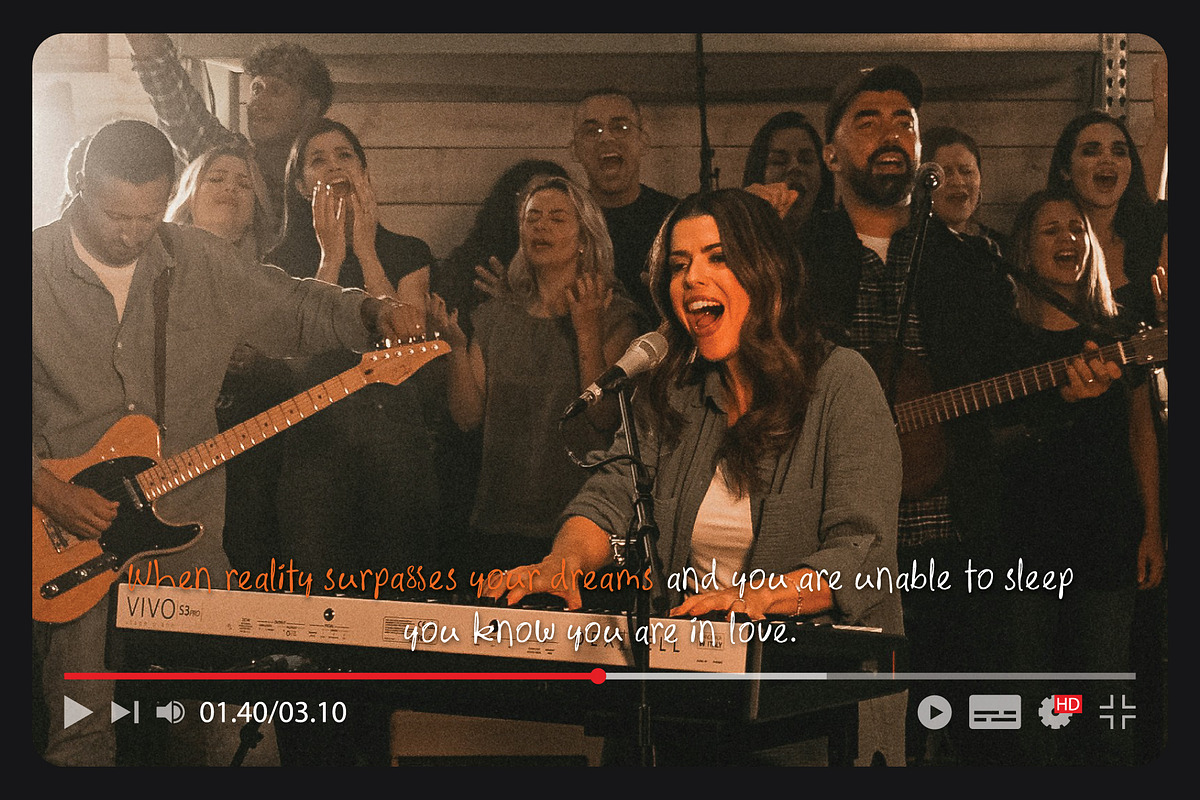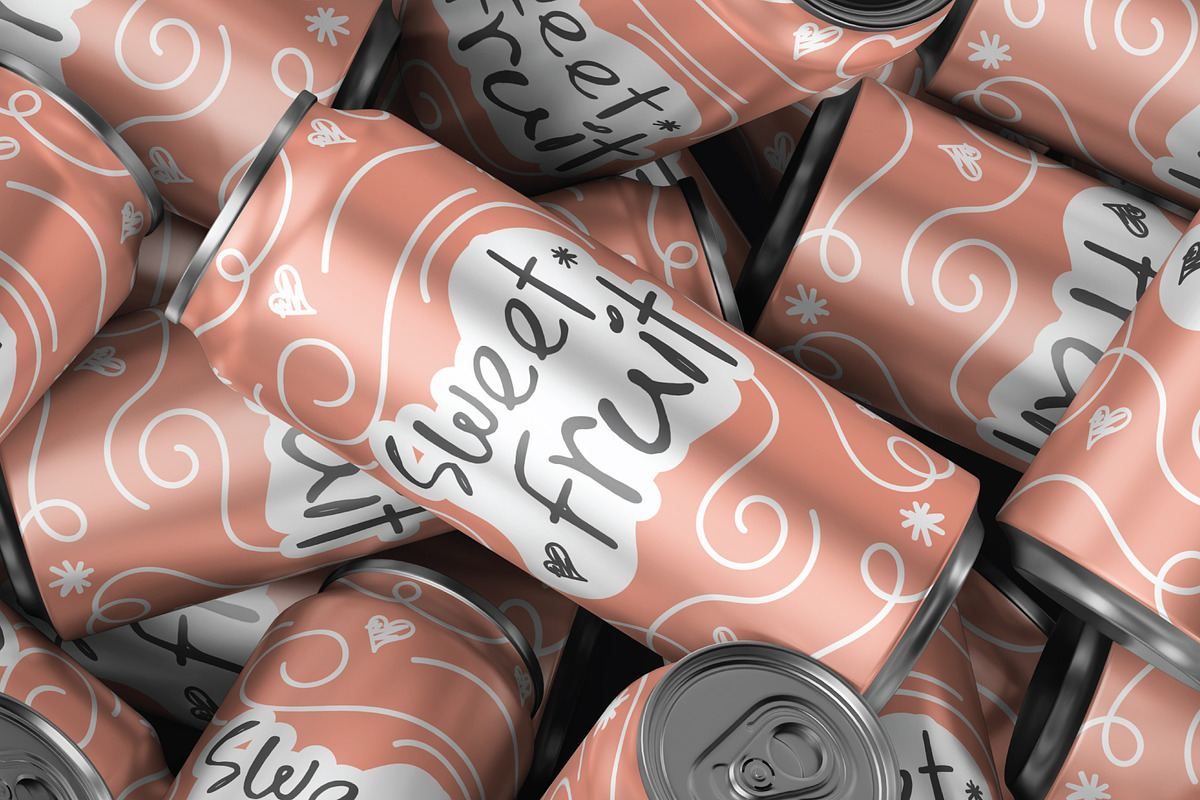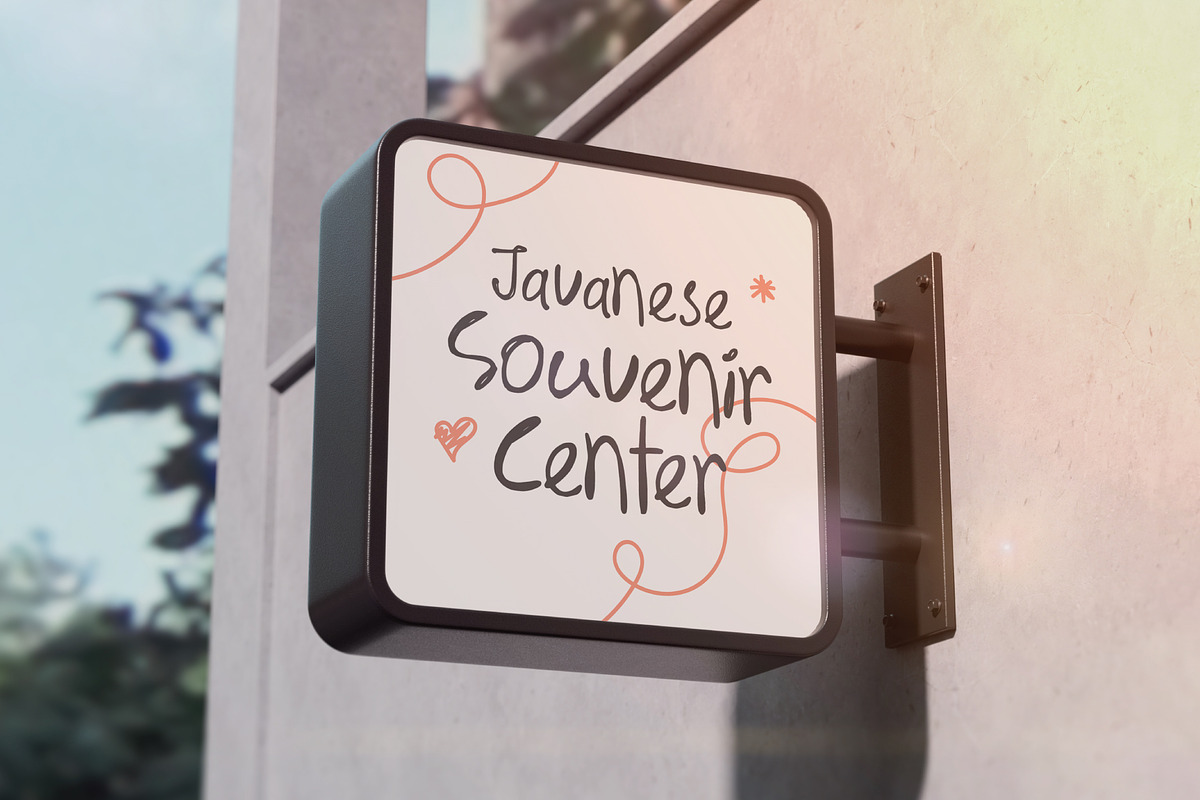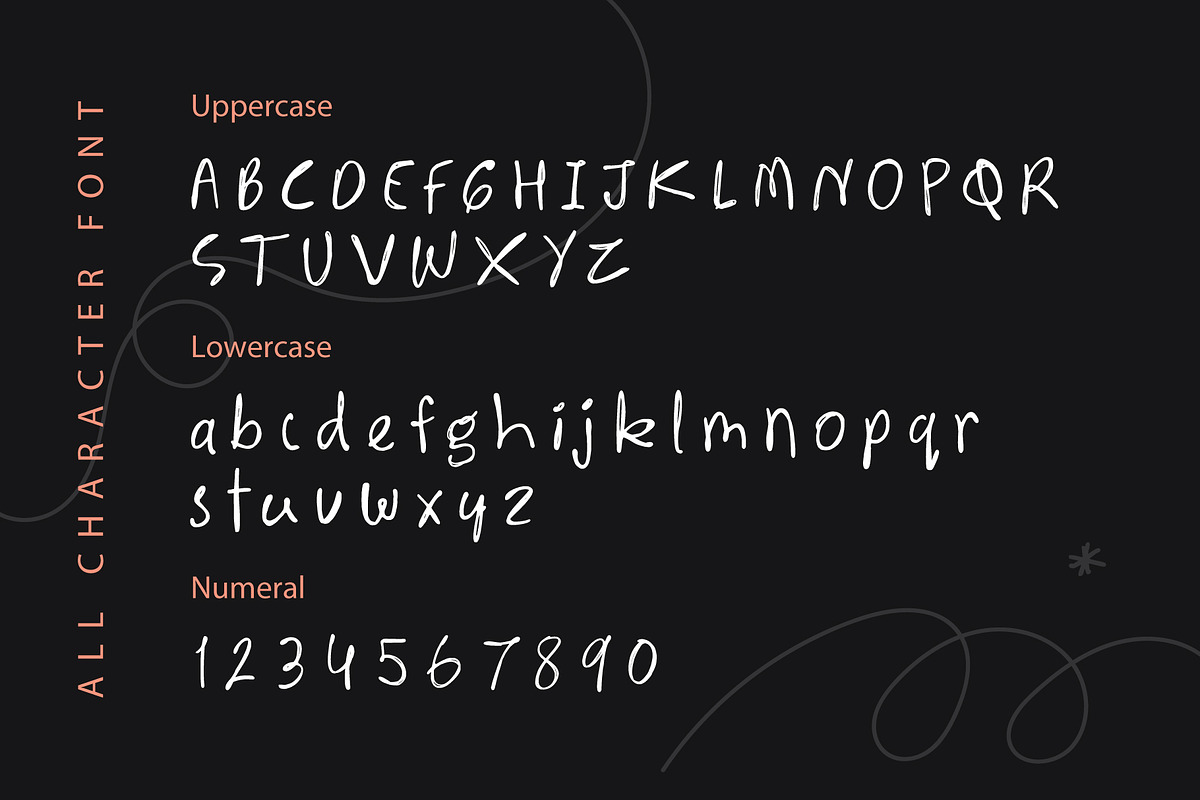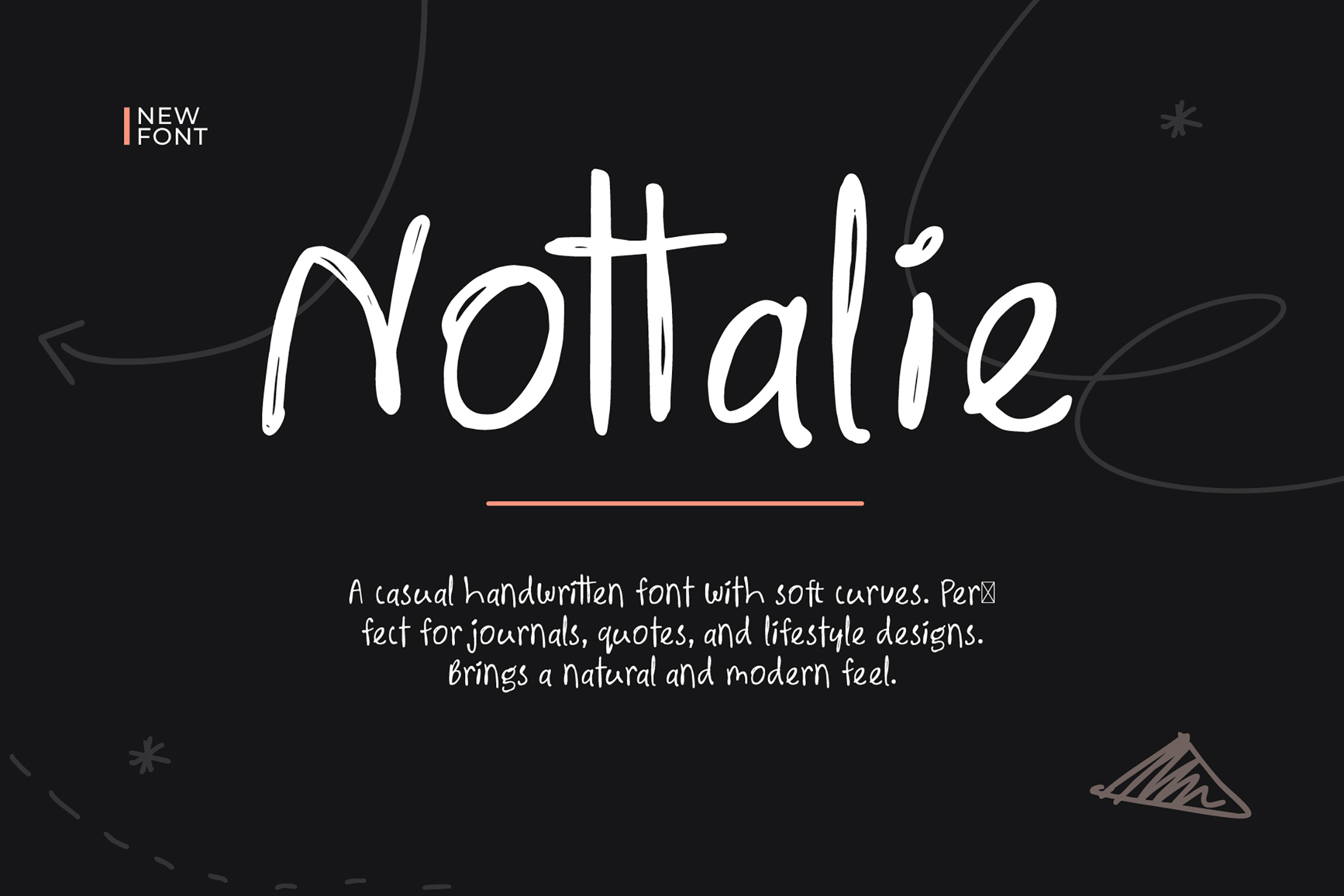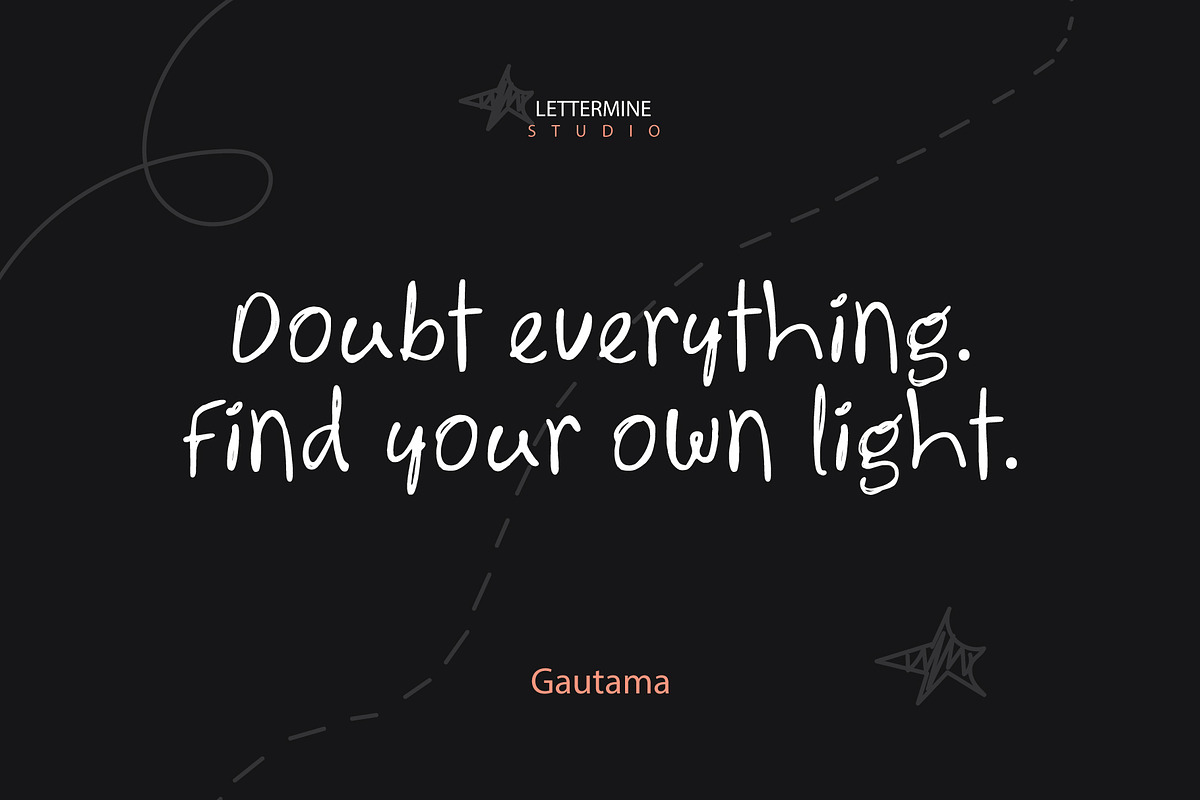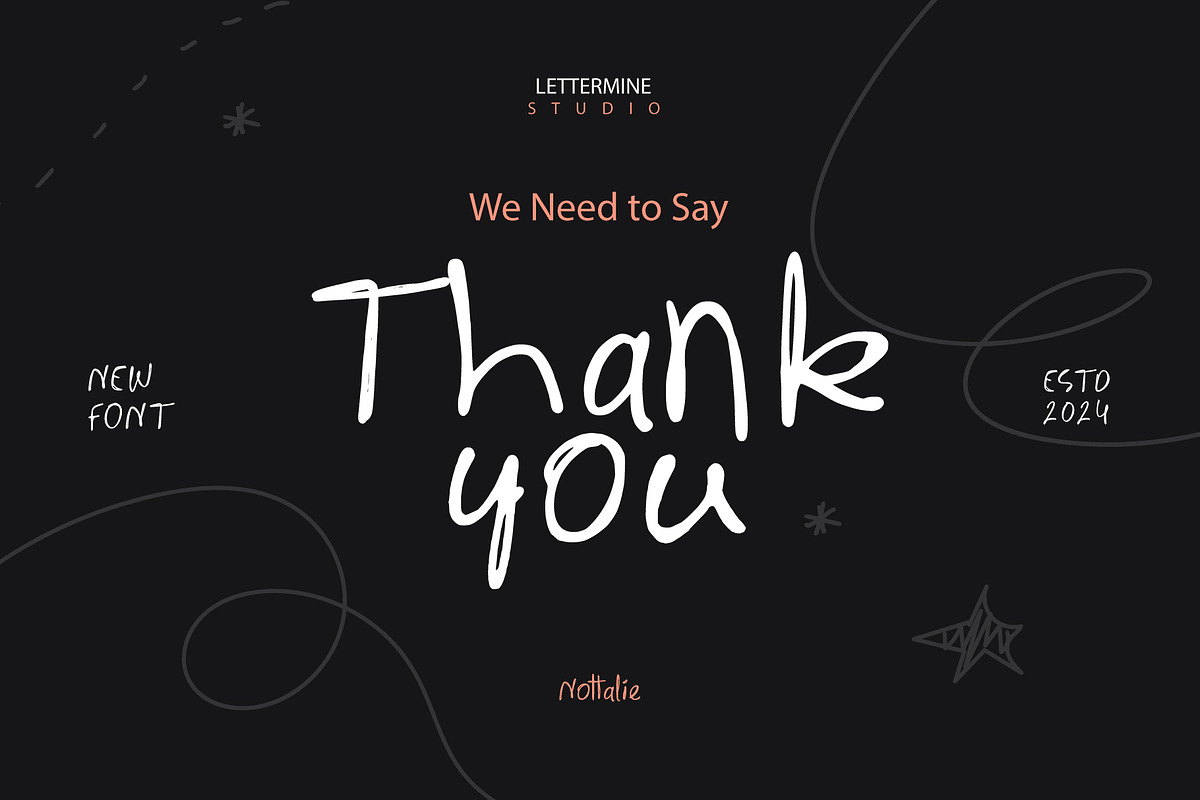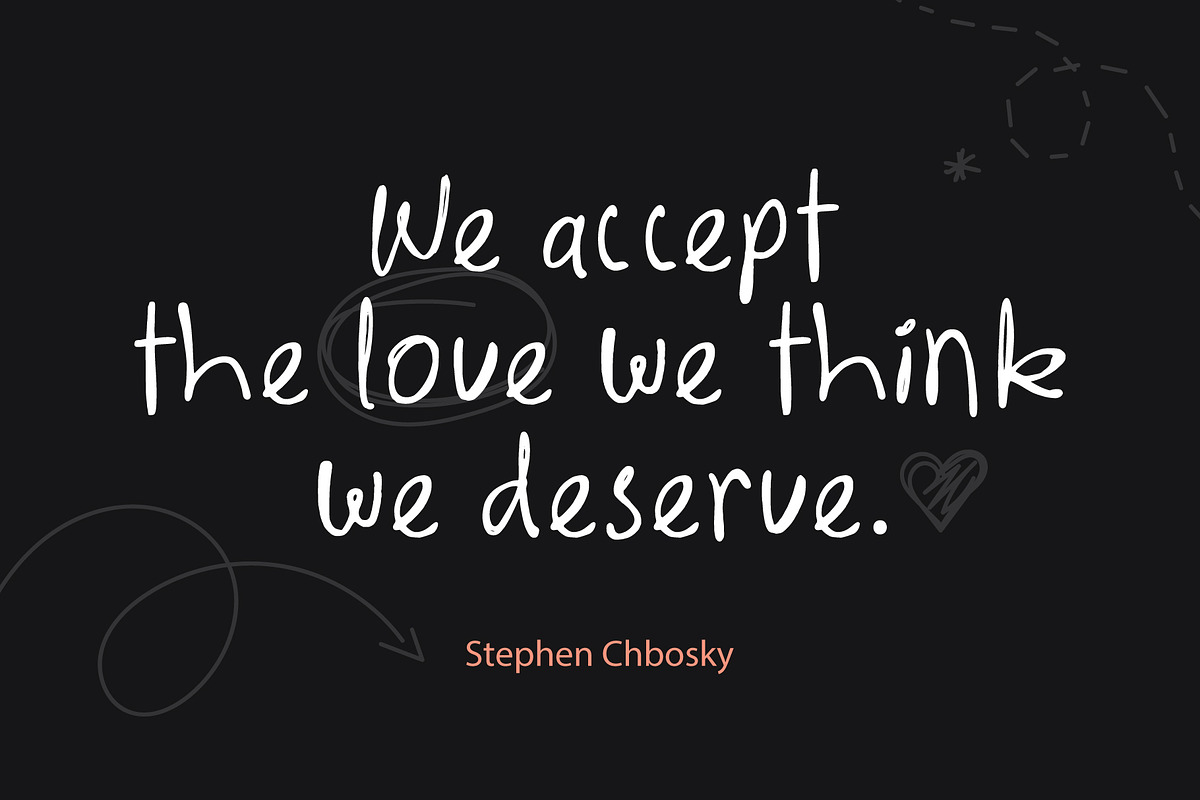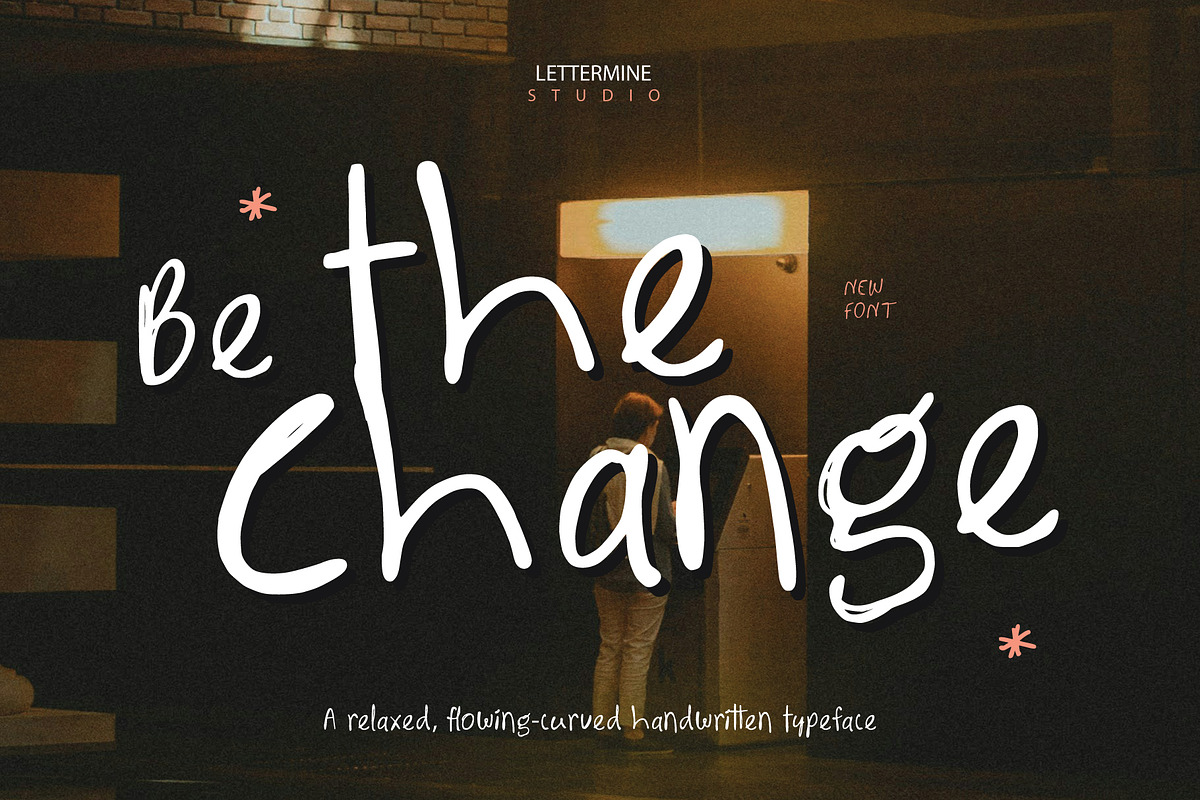
Nottalie – Casual Handwritten Font
Nottalie is a simple yet expressive handwritten font with smooth curves and calm character. Its casual, free-flowing shapes bring a natural and personal touch to any project—from journaling pages and self-help content to lifestyle quotes, personal branding, and minimalist visual graphics.
Crafted for versatility, Nottalie blends effortlessly into both print and digital design. It includes multilingual support and is fully PUA encoded, allowing access to all characters from any software—no special tools needed.
Soft and relaxed handwritten style
Versatile for modern and personal design use